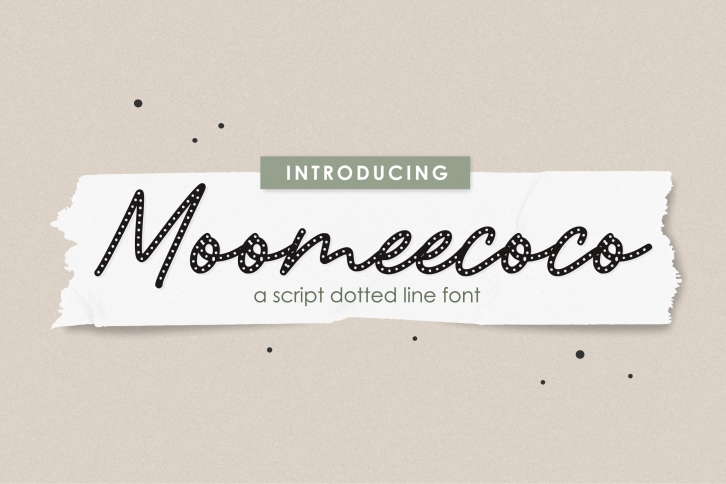
Proudly Present, Moomeecoco
Moomeecoco A Script Dotted Line Font
Moomeecoco is perfect for product packaging, branding project, megazine, social media, wedding, or just used to express words above the background.